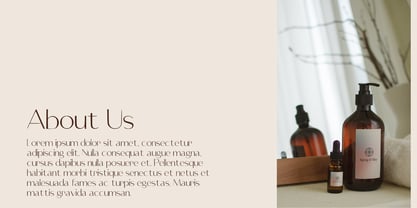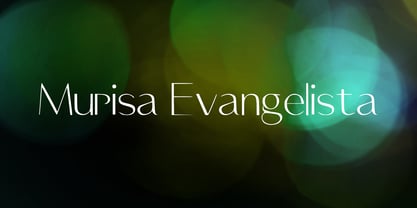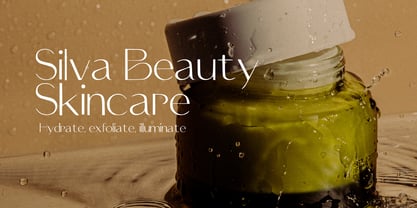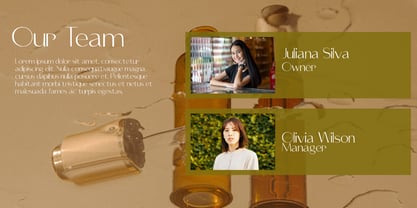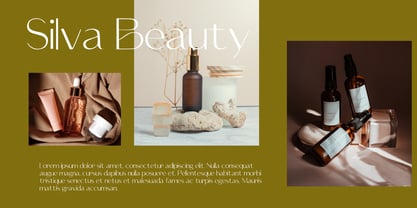
Murisa Evangelista
by Murisa Studio
The Murisa Evangelista Font Family was designed by Lili Sadili and published by Murisa Studio. Murisa Evangelista contains 2 styles and family package options. More about this family
✨ Murisa Evangelista ✨ Step into a world of elegance and distinction with Murisa Evangelista — a typeface born to captivate. Crafted with refined contrasts, elongated verticals, and graceful terminals, this font radiates sophistication while maintaining a bold, modern edge. 🌍 Designed with versatility in mind, Murisa Evangelista supports Eastern European languages, making it a truly global choice for brands and creatives who demand both beauty and functionality. 💎 More than just letters, Murisa Evangelista is a statement piece — perfect for luxury branding, editorial headlines, high-fashion campaigns, and artistic projects that seek exclusivity. Every curve and stroke whispers refinement, ensuring your words don’t just speak, but shine. 🔥 Elevate your design with Murisa Evangelista, where timeless artistry meets contemporary allure.
Designers: Lili Sadili
Foundry: Murisa Studio